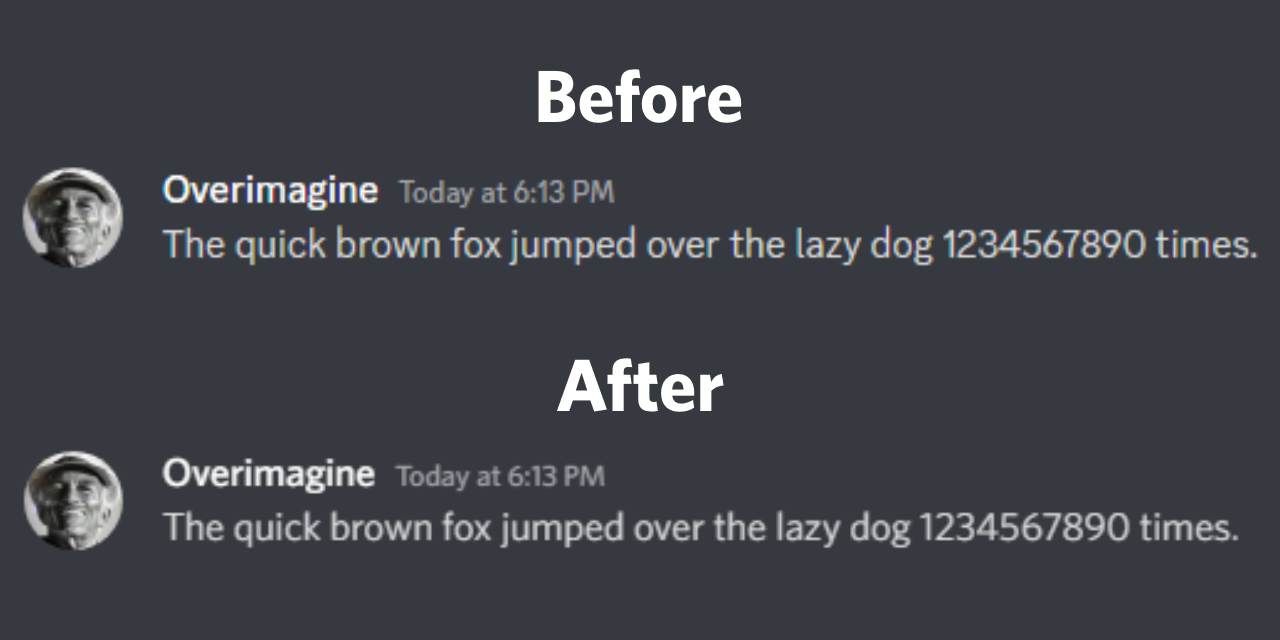
Old Discord Font
Old Discord Font - Web discord got a new font called gg sans and reddit is in shambles. Discord’s new, custom font starting december 1, 2022, discord will begin updating the font across all of its surfaces. Simple css to revert discord's font change back to whitney. You can also press ctrl +. Web 1 year ago updated gg sans: Again, if you don’t know. The css was made by discord themselves (i don't take any credit for the css), however. Scroll down and download the theme file on your device. People dislike the font because it's hard to read even without any vision issues. Open any browser and search discord old font github.
People dislike the font because it's hard to read even without any vision issues. You can also press ctrl +. Web discord got a new font called gg sans and reddit is in shambles. Scroll down and download the theme file on your device. Web 1 year ago updated gg sans: Again, if you don’t know. Simple css to revert discord's font change back to whitney. The css was made by discord themselves (i don't take any credit for the css), however. Discord’s new, custom font starting december 1, 2022, discord will begin updating the font across all of its surfaces. Open any browser and search discord old font github.
The css was made by discord themselves (i don't take any credit for the css), however. Discord’s new, custom font starting december 1, 2022, discord will begin updating the font across all of its surfaces. Open any browser and search discord old font github. Scroll down and download the theme file on your device. Simple css to revert discord's font change back to whitney. Again, if you don’t know. People dislike the font because it's hard to read even without any vision issues. Web discord got a new font called gg sans and reddit is in shambles. You can also press ctrl +. Web 1 year ago updated gg sans:
The css was made by discord themselves (i don't take any credit for the css), however. Web discord got a new font called gg sans and reddit is in shambles. Again, if you don’t know. Simple css to revert discord's font change back to whitney. Open any browser and search discord old font github.
Again, if you don’t know. People dislike the font because it's hard to read even without any vision issues. The css was made by discord themselves (i don't take any credit for the css), however. Scroll down and download the theme file on your device. Discord’s new, custom font starting december 1, 2022, discord will begin updating the font across.
The css was made by discord themselves (i don't take any credit for the css), however. Simple css to revert discord's font change back to whitney. Again, if you don’t know. Discord’s new, custom font starting december 1, 2022, discord will begin updating the font across all of its surfaces. Web 1 year ago updated gg sans:
Scroll down and download the theme file on your device. Web 1 year ago updated gg sans: People dislike the font because it's hard to read even without any vision issues. Simple css to revert discord's font change back to whitney. Discord’s new, custom font starting december 1, 2022, discord will begin updating the font across all of its surfaces.
You can also press ctrl +. Scroll down and download the theme file on your device. People dislike the font because it's hard to read even without any vision issues. Web discord got a new font called gg sans and reddit is in shambles. The css was made by discord themselves (i don't take any credit for the css), however.
People dislike the font because it's hard to read even without any vision issues. You can also press ctrl +. Simple css to revert discord's font change back to whitney. Again, if you don’t know. Scroll down and download the theme file on your device.
Web discord got a new font called gg sans and reddit is in shambles. Open any browser and search discord old font github. Web 1 year ago updated gg sans: Simple css to revert discord's font change back to whitney. Discord’s new, custom font starting december 1, 2022, discord will begin updating the font across all of its surfaces.
Web 1 year ago updated gg sans: Again, if you don’t know. You can also press ctrl +. Discord’s new, custom font starting december 1, 2022, discord will begin updating the font across all of its surfaces. Open any browser and search discord old font github.
Again, if you don’t know. The css was made by discord themselves (i don't take any credit for the css), however. Web discord got a new font called gg sans and reddit is in shambles. You can also press ctrl +. Web 1 year ago updated gg sans:
Open any browser and search discord old font github. Scroll down and download the theme file on your device. The css was made by discord themselves (i don't take any credit for the css), however. Web discord got a new font called gg sans and reddit is in shambles. People dislike the font because it's hard to read even without.
Again, if you don’t know. Web discord got a new font called gg sans and reddit is in shambles. You can also press ctrl +. Simple css to revert discord's font change back to whitney.
Discord’s New, Custom Font Starting December 1, 2022, Discord Will Begin Updating The Font Across All Of Its Surfaces.